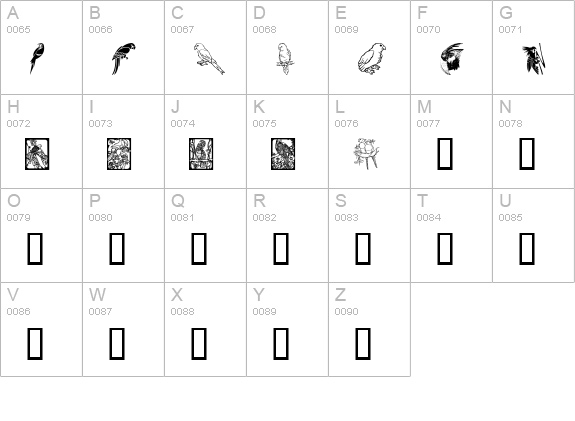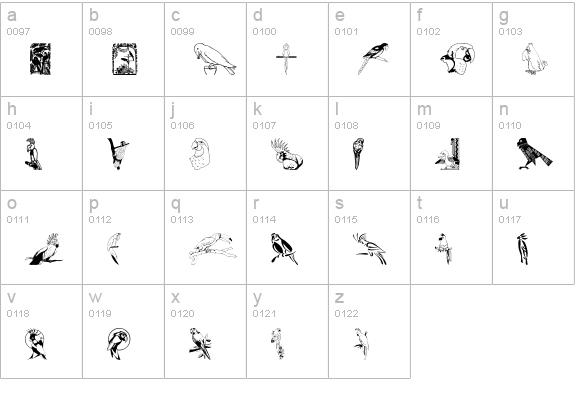
Moyra's Parrots Font Details
Moyra's Parrots font is a whimsical and playful typeface that brings a touch of fun and creativity to any project. Inspired by the vibrant colors and intricate patterns of tropical parrots, this font is perfect for adding a unique and eye-catching element to your designs. With its flowing lines and distinctive characters, Moyra's Parrots font is sure to stand out and make a statement. Whether you're working on a party invitation, a poster, or a branding project, this font will add a touch of personality and charm. Best of all, Moyra's Parrots font is available for free download at FontsMarket.com. So go ahead and unleash your creativity with this delightful and expressive typeface!